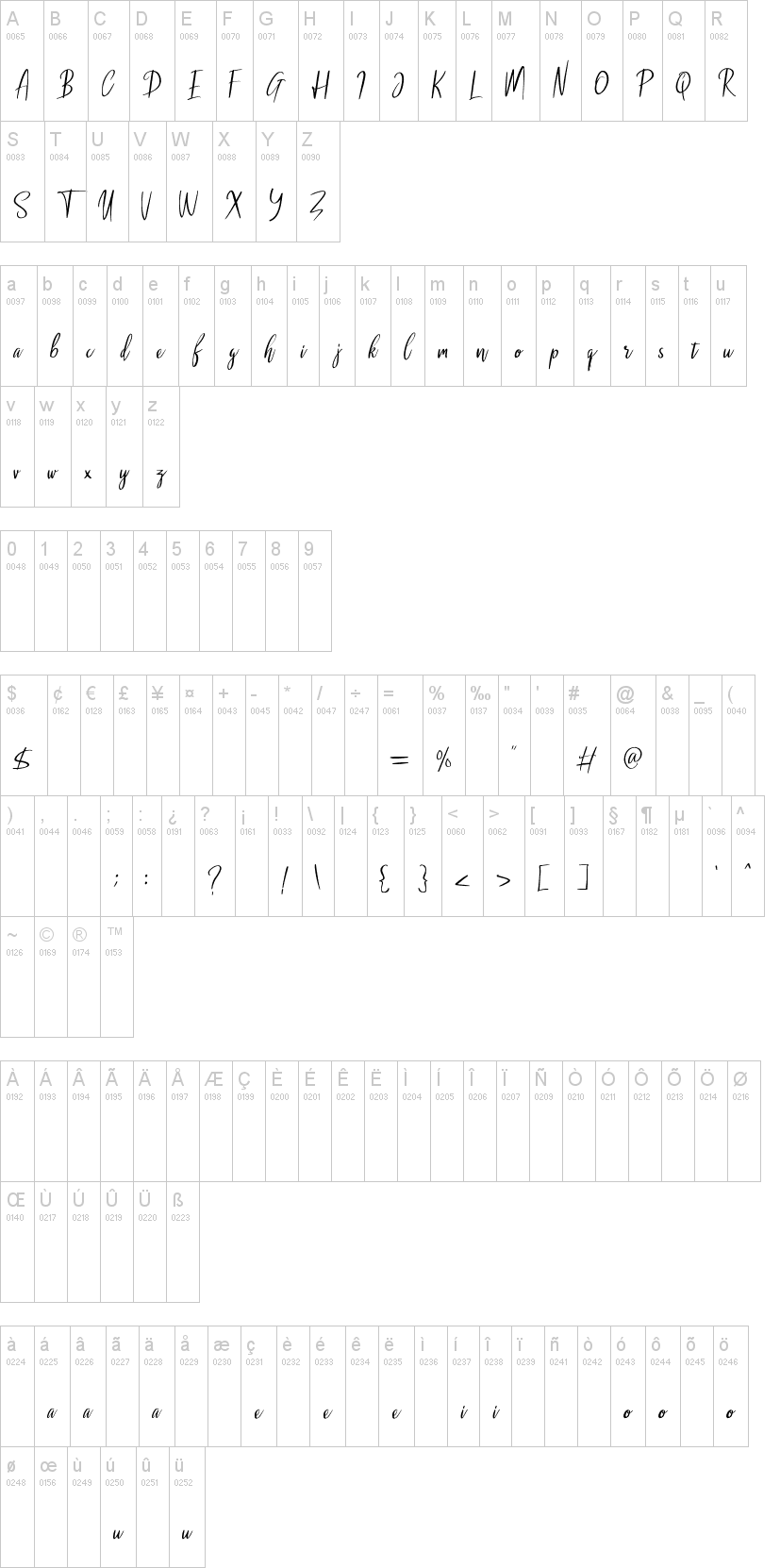
Note of the authorIntroducing of our new product the name is Malenna Script font. inspired by signature and stylish handwriting, perfect for many different project such as logos & branding, invitation, stationery, wedding designs, social media posts, advertisements, product packaging, product designs, label, photography, watermark